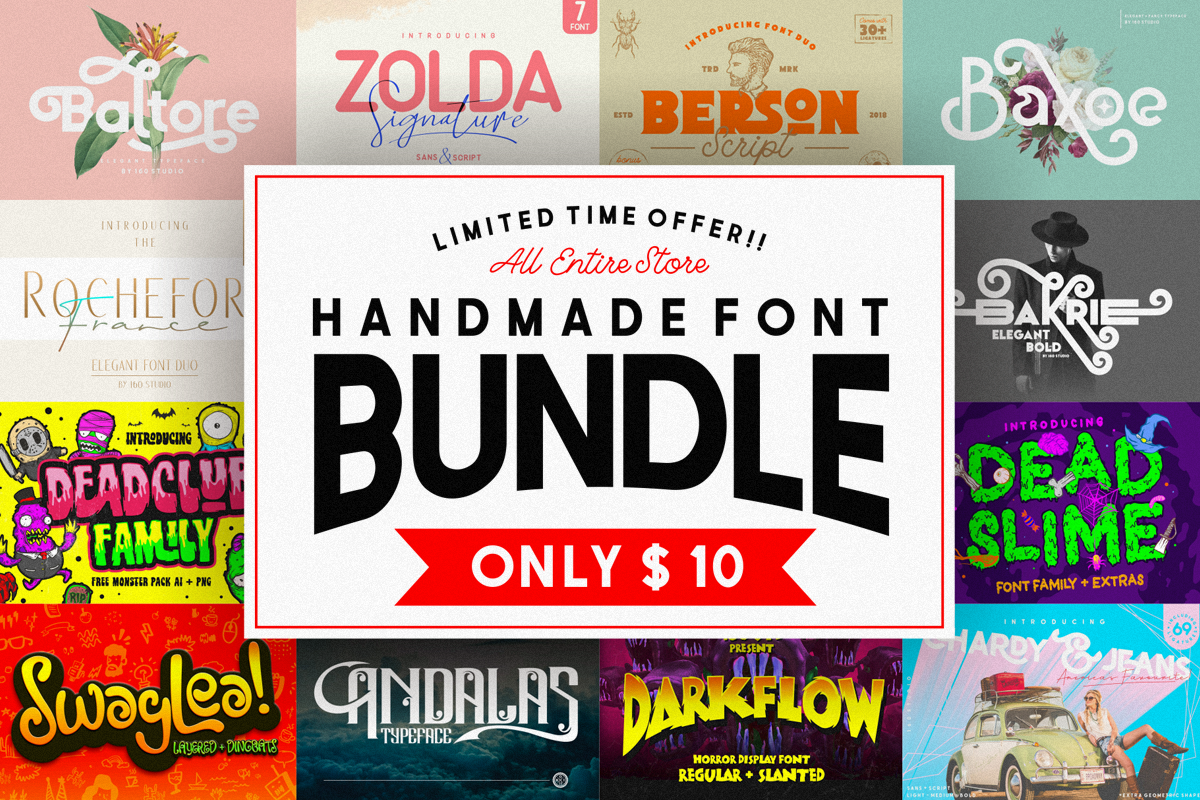
Discover a collection of 20 premium and unique fonts designed to make your projects truly stand out. Each typeface in this bundle has been carefully crafted to offer originality, versatility, and professional quality—perfect for elevating your creative work.
Fonts such as Baltore, Bakrie, and Baxoe feature charming alternate characters that bring a playful and eye-catching twist to your typography. Their stylish variations make them ideal for invitations, posters, branding, and social media graphics. Meanwhile, elegant modern fonts like Chardy, Rochefort, Fischel, and Zolda embody sophistication and clean design, making them perfect for professional branding, fashion themes, editorial layouts, and upscale projects.
To add even more value, this collection also includes a set of bonus illustrations, allowing you to pair stunning typography with creative graphics for a complete design solution. Whether you’re a designer, crafter, or DIY enthusiast, these fonts provide endless possibilities for standout creations